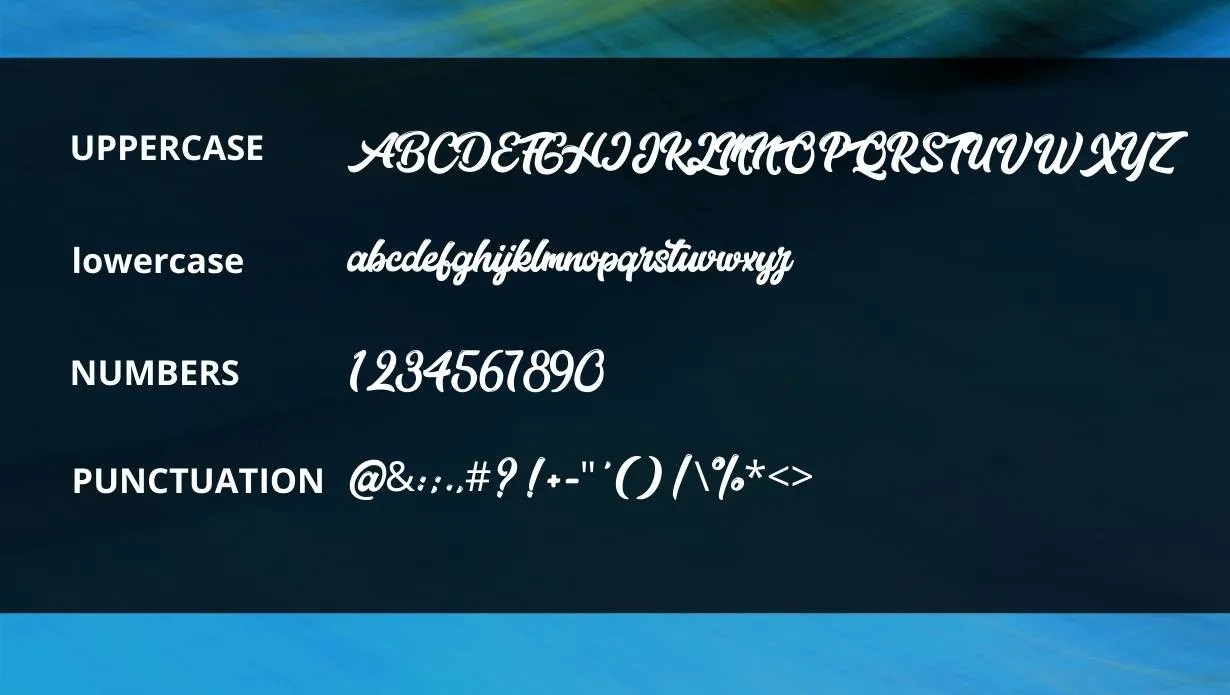
Highschool Font Free Download
Highschool Font is a font that was created in order to make it easier for students to read and write papers. The font was designed by Cat. B, and it has become one of the most popular fonts among students and teachers alike. This Font is available in script versions, and it is available in a variety of different sizes.
The typeface all weight includes Opentype features and Truetype features, it has a pairing personality with merriweather font.